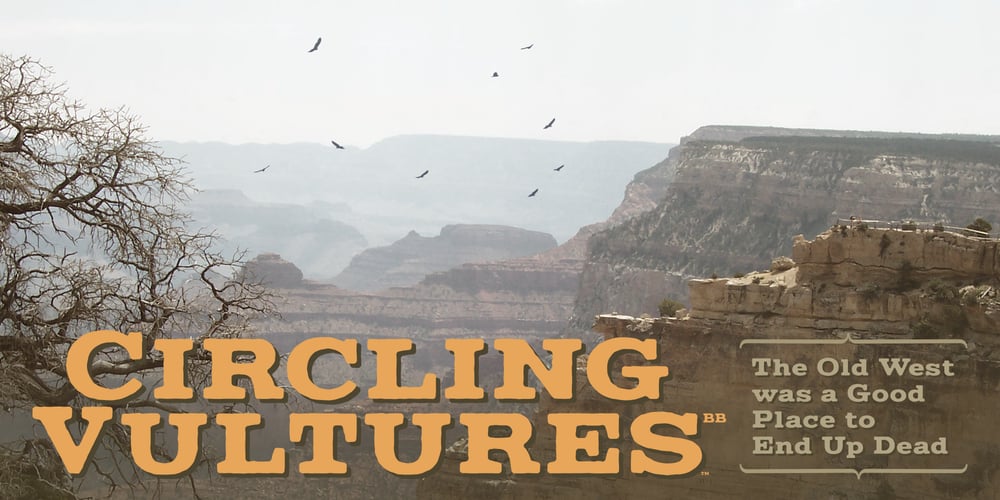
Circling Vultures BB
Circling Vultures BB font
Circling Vultures BB Font Family was designed by Nate Piekos and published by Blambot. Circling Vultures BB contains 6 styles and family package options. Circling Vultures is an old west slab serif font offered in degrees of aging; Circling Vultures BB is clean, with sharp edges and lines, Circling Vultures Decay BB has rounded corners and distressed lines, Circling Vultures Rot BB is the most worn out option in the set, with flecks of missing “ink” apparent. Each option comes with two variants; a standard upper/lowercase, and an option with smaller caps in the lowercase keys for a total of six fonts in the set.